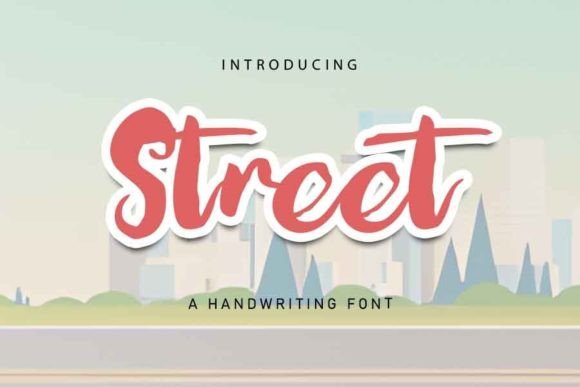
In a world where visual expression dances across digital canvases, meet Street Font - a script masterpiece crafted to ignite your creative spark. This handwritten font, born from the artistry of Leontyn Art, is a symphony of strokes, flourishes, and captivating curves. Street Font is not just a collection of letters; it's an invitation to embark on an artistic journey, where your words transform into captivating visual narratives.
Journey through the realm of imagination, where Street Font dances across your screen, effortlessly weaving messages of love, joy, and heartfelt sentiments. Its script style is a mesmerizing tapestry of elegance and playfulness, evoking the warmth of handwritten notes and the charm of vintage ephemera. Each character carries an emotional weight, whispering stories and stirring hearts with its graceful presence.
With Street Font, every project becomes a canvas for your creative vision. Whether you're designing birthday invitations, crafting heartfelt greeting cards, or adding a personal touch to social media posts, this font will elevate your words to new heights. Its versatility knows no bounds, seamlessly adapting to a myriad of digital projects, from website headers to captivating social media graphics.
Experience the joy of effortless creativity as Street Font transforms your digital creations into captivating expressions of art. Its user-friendly nature makes it a delight to use, even for those new to the world of typography. Let your imagination soar and witness the magic unfold as Street Font weaves its enchanting spell, leaving a lasting impression on your audience.
Don't let your digital creations be confined to the ordinary. Embrace the boundless creativity that awaits with Street Font. Make a statement, capture hearts, and let your words resonate with a newfound depth and charm. Unleash the power of Street Font and witness the transformation of your digital world into a captivating realm of visual artistry.